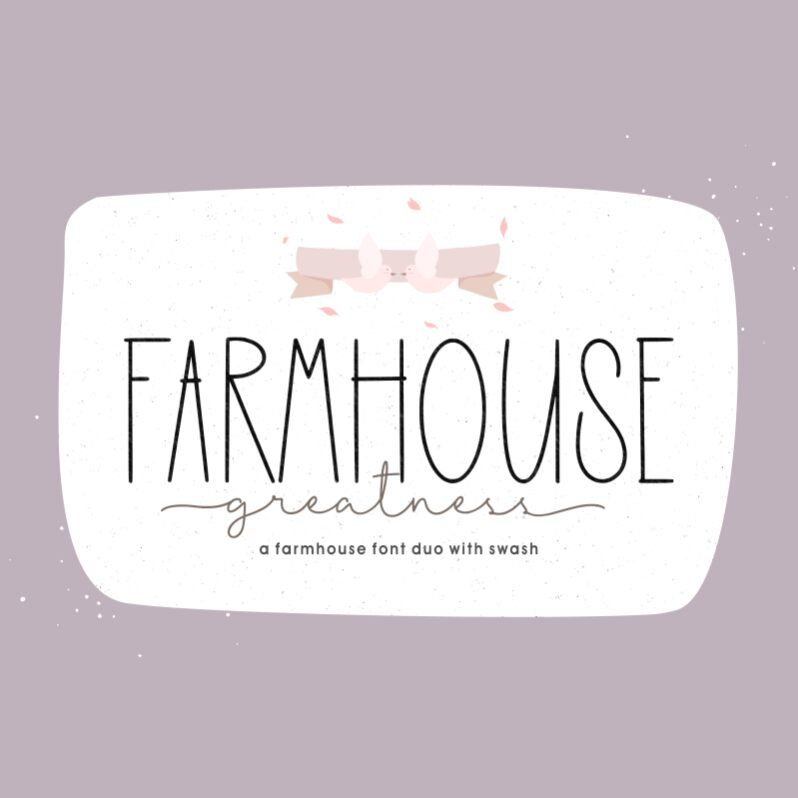
Farmhouse Greatness Tall
Farmhouse Greatness Tall is a charming block handwritten font style designed by Qwrtype Foundry. With its extra-light weight and extra-condensed width, this font is perfect for adding an elegant touch to your projects while still maintaining legibility. It's ideal for use in branding, packaging, logos, and other design projects that require a unique and eye-catching font. Whether you're creating invitations for a rustic wedding or designing a menu for a farm-to-table restaurant, Farmhouse Greatness Tall will bring an authentic and organic feel to your work. Get creative with this versatile font family and take your designs to the next level!